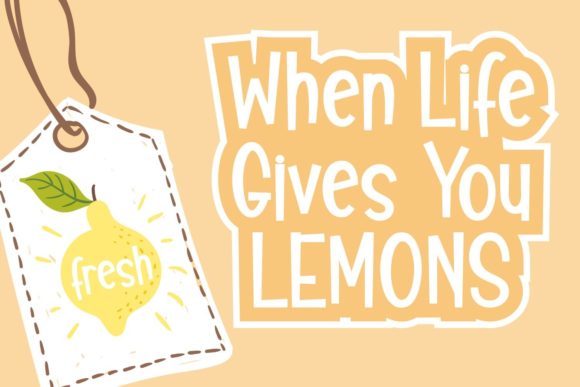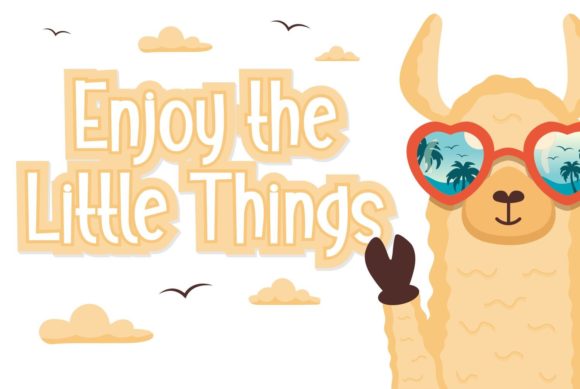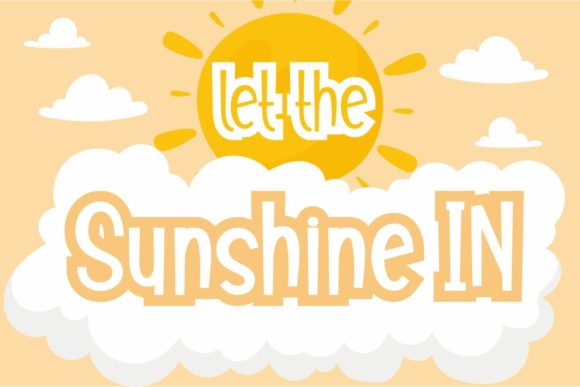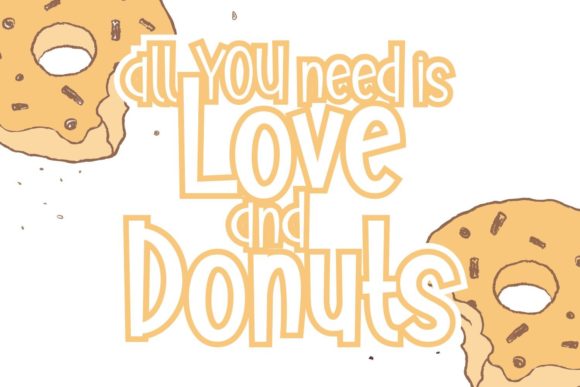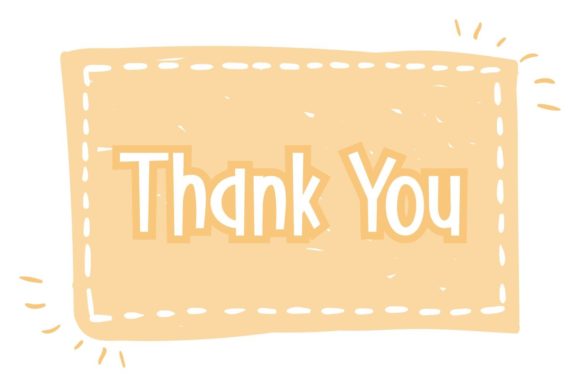
Introduction to Keep Being Beautiful Font
Have you ever been stuck in a creative rut, staring at a blank page or screen, desperately searching for that perfect font to bring your idea to life? You’re not alone. As designers, we’ve all been there at some point. But what if I told you there’s a font that can transport you to a world of whimsy and wonder, where creativity flows freely and inspiration strikes?
Enter the Keep Being Beautiful Font, a delightful display font that’s sure to capture your heart and spark your imagination. With its playful, elegant style, this font is perfect for creating eye-catching covers, banners, and product packaging that stand out from the crowd. Whether you’re working on a design project, crafting a storybook, or simply want to add a touch of magic to your quotes, the Keep Being Beautiful Font is a valuable resource that’s sure to elevate your work to new heights.
Honest Review: Keep Being Beautiful Font
I recently stumbled upon the Keep Being Beautiful Font, and I must say, it’s a lovely addition to any design project. The high quality of this font makes it perfect for creative endeavors where attention to detail is crucial.
One of the standout features of this font is its transparent background, which makes it easy to layer and manipulate in design software. This level of flexibility is a must-have for designers who value precision and control.
Here are some of the things that work well with the Keep Being Beautiful Font:
- ✨ High quality and crisp typography
- ✨ Easy to read and understand
- ✨ Versatile and suitable for a wide range of creative projects
- ⚠️ Limited character set and special characters
Overall, the Keep Being Beautiful Font is a solid choice for designers who need a reliable and easy-to-use font for their creative projects. While it may have some limitations, its high quality and versatility make it a valuable addition to any design resource library.
The Keep Being Beautiful Font is a high-quality design resource that can add a touch of elegance to any creative project. With its transparent background and beautiful typography, it’s perfect for designers looking for a unique and stylish font.
To get the most out of the Keep Being Beautiful Font, try combining it with other design elements, such as images and graphics. You can also experiment with different font sizes and colors to create a unique look.
The Keep Being Beautiful Font is perfect for a wide range of creative projects, including: